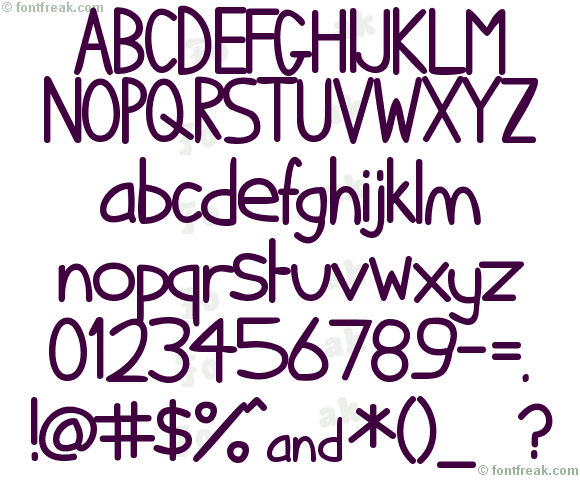
I hate Comic Sans
Introducing the "I Hate Comic Sans" font by Dale Harris, a playful yet sophisticated typeface that is available for free download. This font belongs to the sans-serif category, making it a versatile choice for a variety of design projects. With its clean lines and modern aesthetic, the I Hate Comic Sans font is a refreshing alternative to the much-maligned Comic Sans, offering a more refined look without sacrificing personality.
Visually, the font boasts a balanced stroke weight, providing a sense of stability and clarity. The letterforms exhibit subtle contrast, which enhances readability while maintaining a friendly, approachable appearance. The spacing between characters is well-considered, allowing for seamless flow in text while ensuring that each letter stands out distinctly. The design avoids any excessive decorative elements, making it suitable for both formal and informal contexts.
This font is ideal for a range of creative applications, including restaurant menus that require a casual yet polished touch, event flyers that demand attention without overwhelming the viewer, and social media graphics that call for engaging and readable typography. Additionally, it serves as a fantastic choice for small business branding, helping to convey a sense of professionalism while still retaining a lighthearted charm.
Targeted towards graphic designers, small business owners, and content creators, the I Hate Comic Sans font offers a unique solution for those seeking to elevate their visual communication. Its name itself captures a cultural sentiment, making it not just a font, but a statement piece in any designer's toolkit.
Ultimately, what sets the I Hate Comic Sans font apart is its ability to combine humor with sophistication. This font stands out by transforming a common design critique into an opportunity for creativity, ensuring that your projects not only communicate effectively but also resonate with your audience. Don't miss out on the chance to experience this unique typeface with the I Hate Comic Sans font free download.